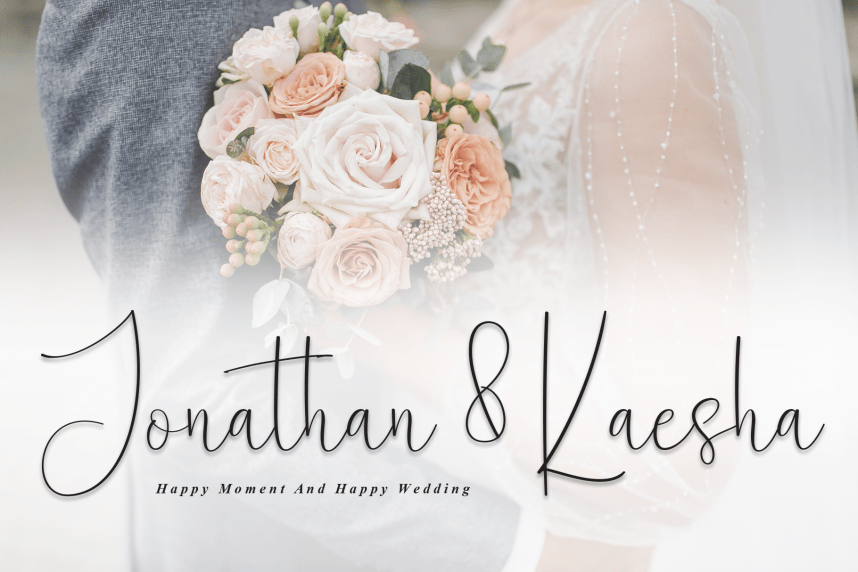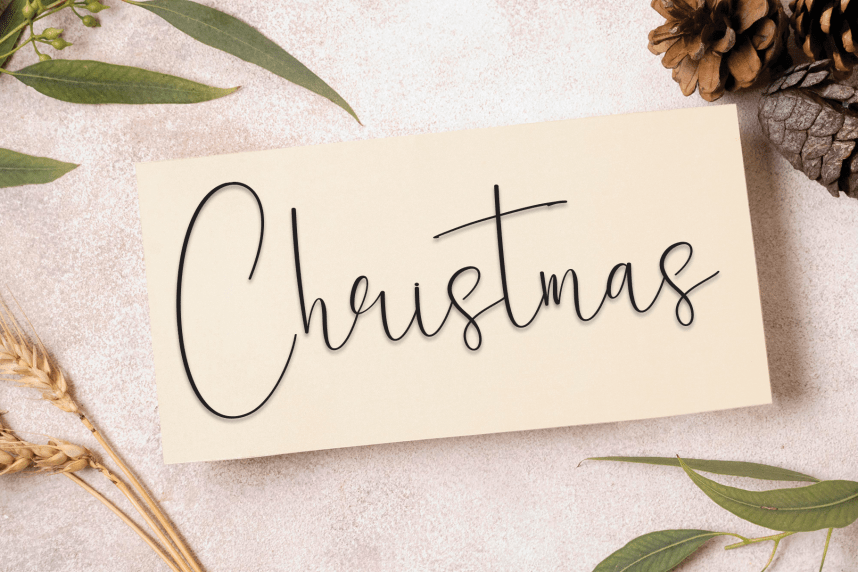
Beautyful Snowman – Handwritten Script Font, special creative products for you, our products will give you an extraordinary experience. the latest style letters are perfect for wall displays, wedding invitations, social media post logos, advertisements, product packaging, product designs, labels, photography, watermarks, invitations, stationery, and any project that requires taste handwriting.